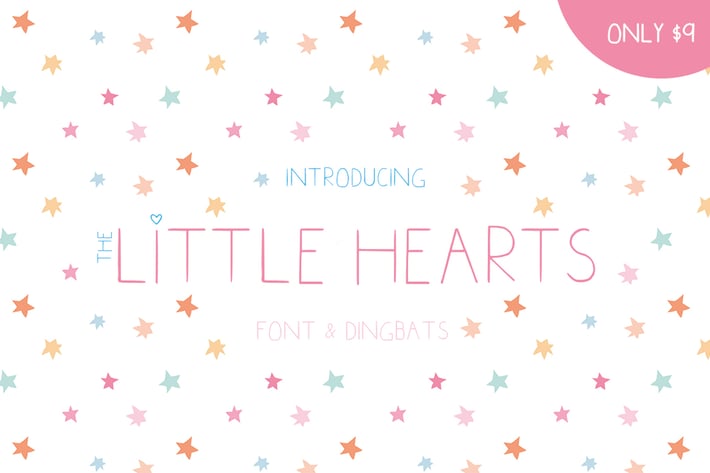
Little Hearts Font
Meet 'Little Hearts' a brand new Font/Dingbats mixed typeface. Combine the uppercase skinny letters with 26 different doodles created using the lowercase alphabet. Grab your copy today for ONLY $9!